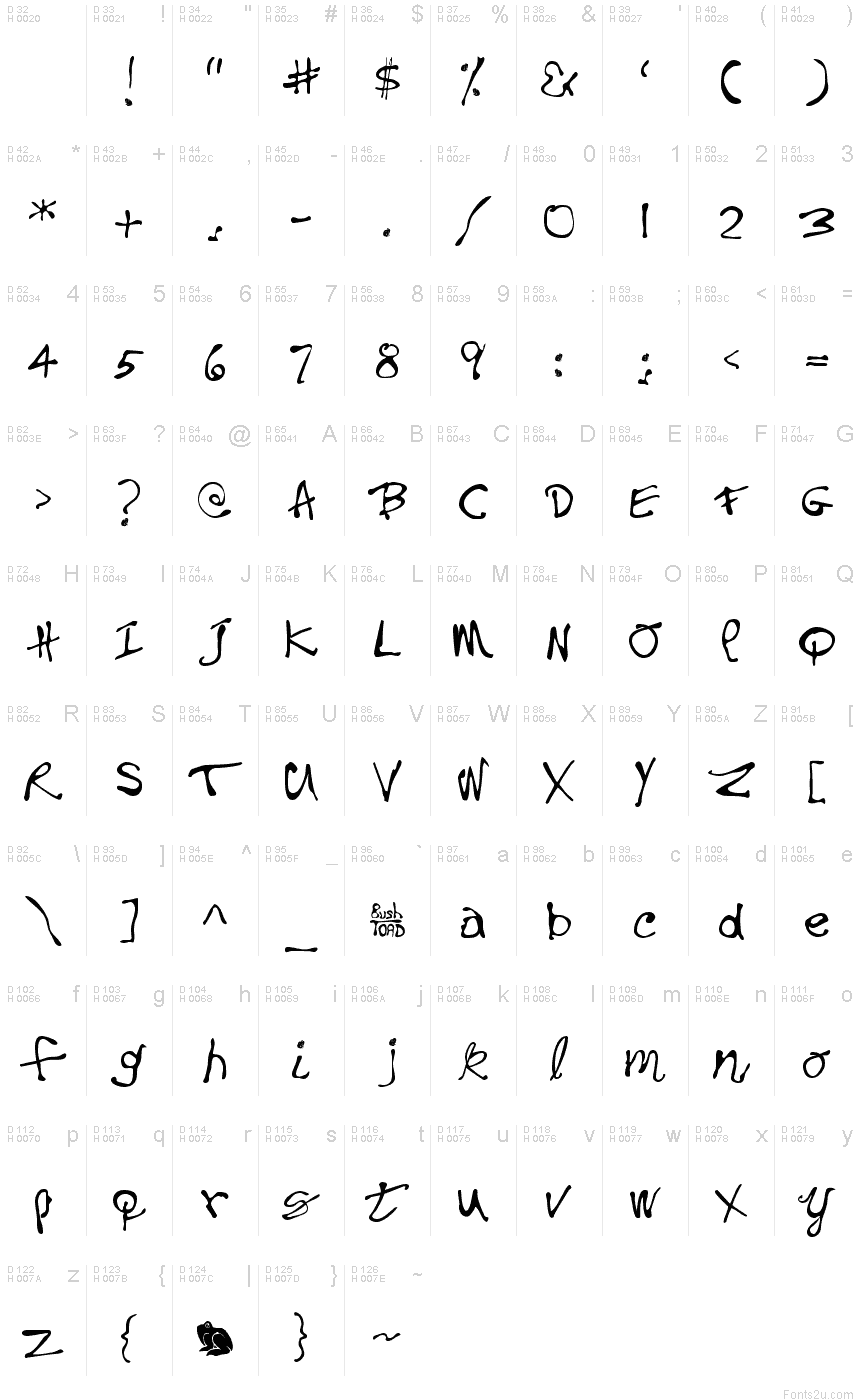
BushToad
BushToad font by Three Mile Island is a free grungy handwritten typeface with the energy of a scribbled bathroom wall and a sticky black marker. The letters wobble, stretch, and knot together like tangled cords, giving every word a raw, slightly unhinged vibe. It’s messy in a deliberate way, great when you want your design to feel noisy, underground, and a little gross on purpose.
Using BushToad, you can push gig posters, gross-out zines, skate graphics, slime-themed party flyers, horror-comedy titles, and irreverent YouTube thumbnails into full-on splatter mode. This free font loves big sizes and bold colors; pair it with a plain, narrow sans serif for small text so the wild handwriting does all the shouting.